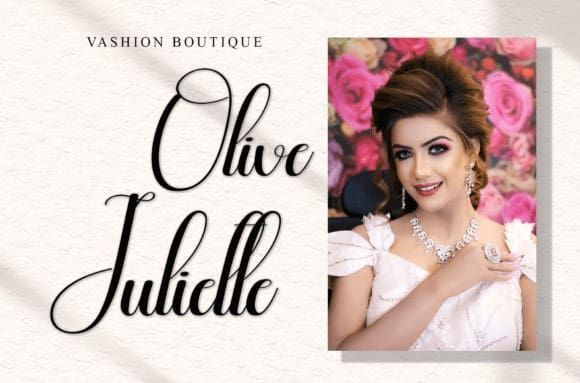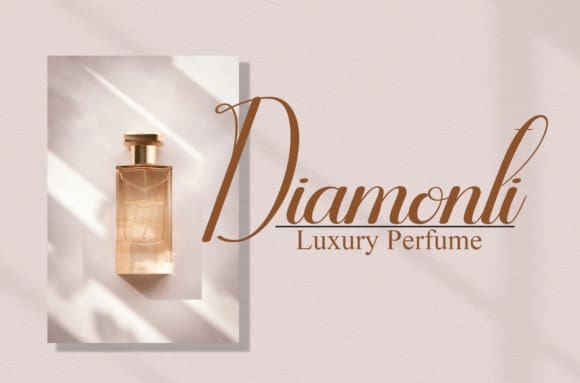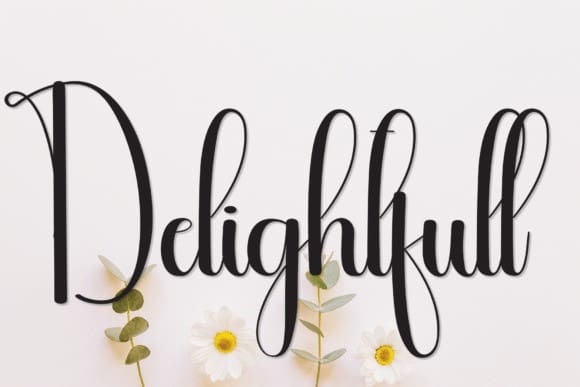
Delightfull Script Font
Delightfull Script Font, is a sweet and friendly handwritten font. Fresh and neat, this font is ideal for writing wedding invitations, cards, or any other design that might need a fun touch!